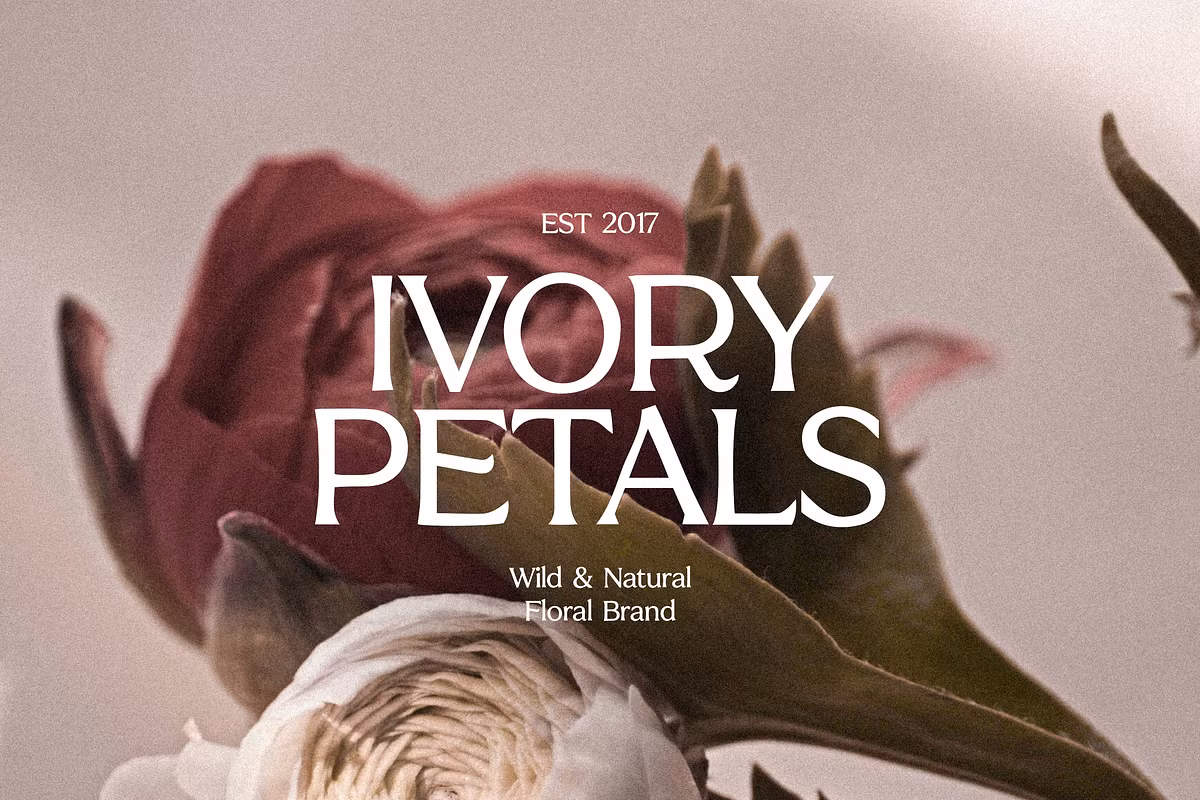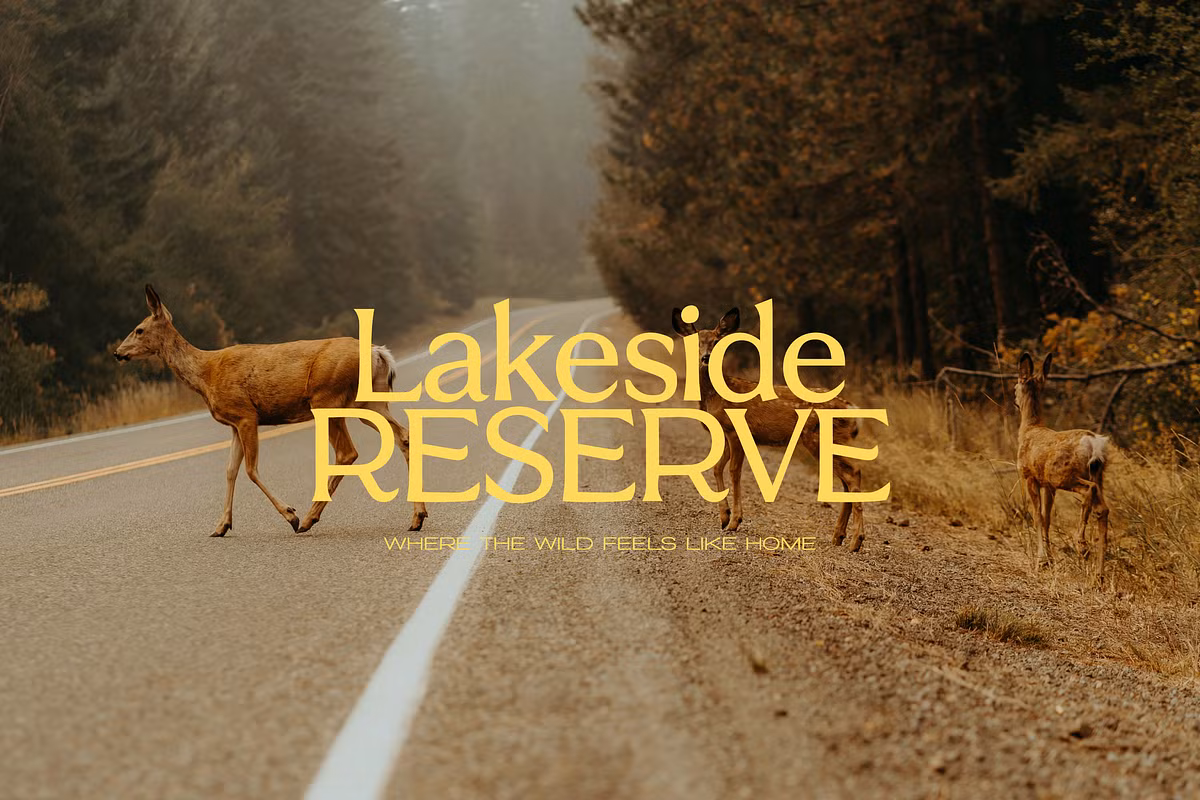
Introduction to FIGURE: A Bold Serif Typeface
Meet FIGURE, a striking serif font that’s all about making a statement in the world of modern editorial design. With its bold, high-contrast strokes and soft, curved lines, this typeface is perfect for adding a touch of sophistication and artistic flair to your work. The stylish, slightly dramatic shapes that make up FIGURE are designed to convey a sense of premium quality and instant recognition, making it ideal for logo design, fashion branding, and luxury hospitality identities.
Whether you’re looking to create a sense of “quiet luxury” or simply want to add some unique personality to your design work, FIGURE is the perfect choice. Its confident, modern aesthetic is sure to turn heads and make your typography stand out from the crowd. So why settle for ordinary typography when you can make a statement with FIGURE? This font is all about evoking a mood of understated elegance and refinement, while still maintaining a unique and distinctive personality that’s sure to set your design work apart.
Design Style of FIGURE
The FIGURE design is really something special – it’s bold, but also elegant. The thick and thin lines make it stand out, and the smooth curves add a bit of class. This mix of strong and soft elements doesn’t just make it look good, it also makes it work well in lots of different design situations. You can use it in lots of ways and it will always look great.
The way it balances boldness and elegance is what makes it so versatile and appealing. Each character in FIGURE has been meticulously crafted to balance form and function. The dramatic shapes capture attention, making it an excellent choice for display purposes. This font is not just a tool but an artistic element that serves to elevate your branding, making it instantly recognizable.
Character Sets and Versatility
The FIGURE font is really versatile and can be used for lots of different projects, like printing and digital stuff. It’s got a big range of characters, including uppercase and lowercase letters, numbers, and special characters, which gives you a lot of freedom to be creative with your designs. This means you can use it for all sorts of things, and it will still look great.
Whether you’re working on a print project or something for the web, FIGURE is a great choice because it can handle all the different languages and typographic needs you might have. When you’re creating something like a magazine headline that really needs to stand out, or packaging for beauty and skincare products that should look elegant, FIGURE is a great choice.
Use Cases for FIGURE
There are numerous applications for FIGURE that highlight its unique design qualities:
- Logo design: It’s bold and eye-catching, making it great for logos that need to make a statement.
- Fashion Branding: FIGURE provides the artistic flair needed to attract attention.
- Beauty and Skincare Packaging: The premium feel aligns perfectly with luxury beauty brands.
- Magazine Headlines: With its striking presence, FIGURE is perfect for headlines.
- Posters and Menus: It ensures designs are easy to read and visually appealing.
- Luxury Hospitality Identities: It brings a sense of elegance and sophistication.
FIGURE makes posters and menus look great. They can be for things like art shows or fancy restaurants, helping ensure the design is easy to read and nice to look at. This way, people can understand what’s going on, and it’s also pretty.